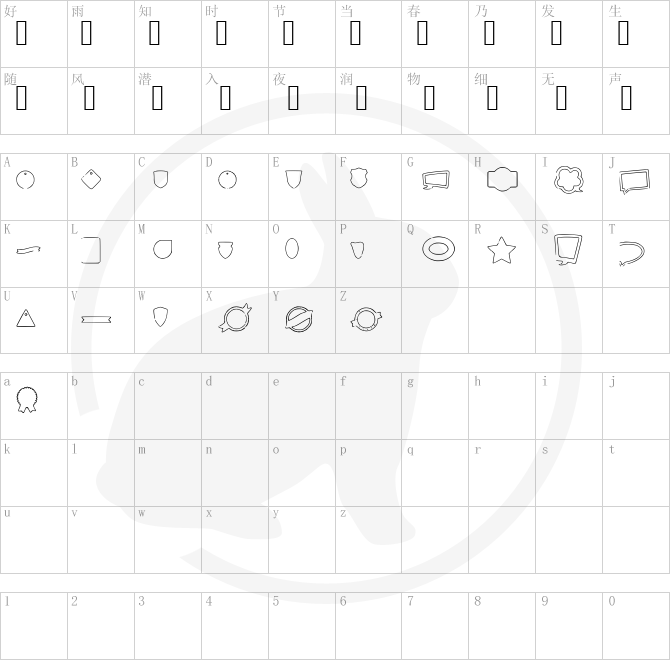
- Font Name:Labels Outline
Labels-Outline.ttf is a very beautiful artistic font, Labels-Outline.ttf is widely used in the design and printing of various books and pictures,Labels-Outline.ttf has a strong visual impact,Labels-Outline.ttf is a commonly used font in newspapers, magazines and books, and is used in posters, e-commerce Poster design, store design, logo design, font design and other fields.Labels-Outline.